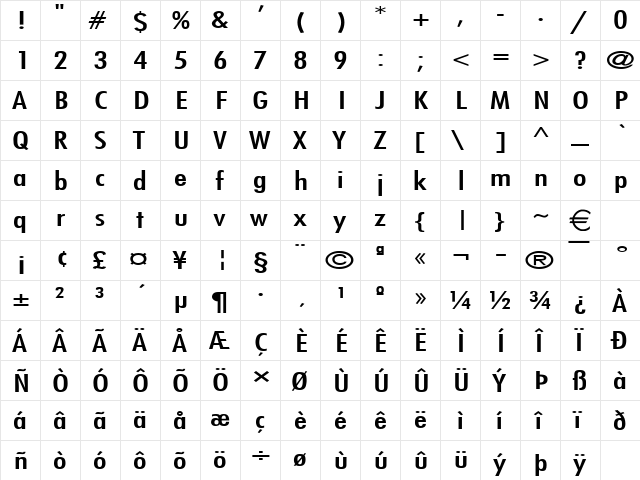
FujiExtended Normal
Design Context for FujiExtended Typeface
FujiExtended is a composed and adaptable typeface that performs quietly and consistently across a wide range of design contexts.